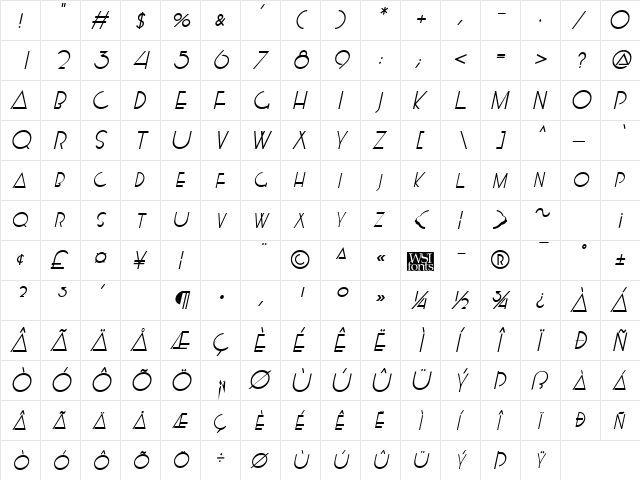
Kensington Italic
Design Context for Kensington Typeface
Kensington takes a measured approach to typography — its balanced proportions and neutral character make it a reliable workhorse for both digital and print work. The dynamic lean of this cut emphasises speed and emphasis in any layout.